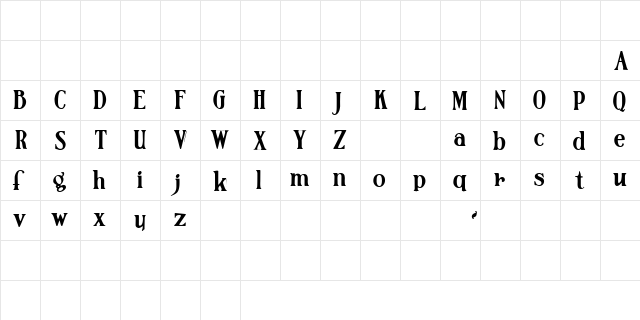
Hamilton Demo Regular
Design Context for Hamilton Demo Typeface
Hamilton Demo offers clean, dependable letterforms without strong stylistic allegiance, making it a practical choice for designers who need flexibility.